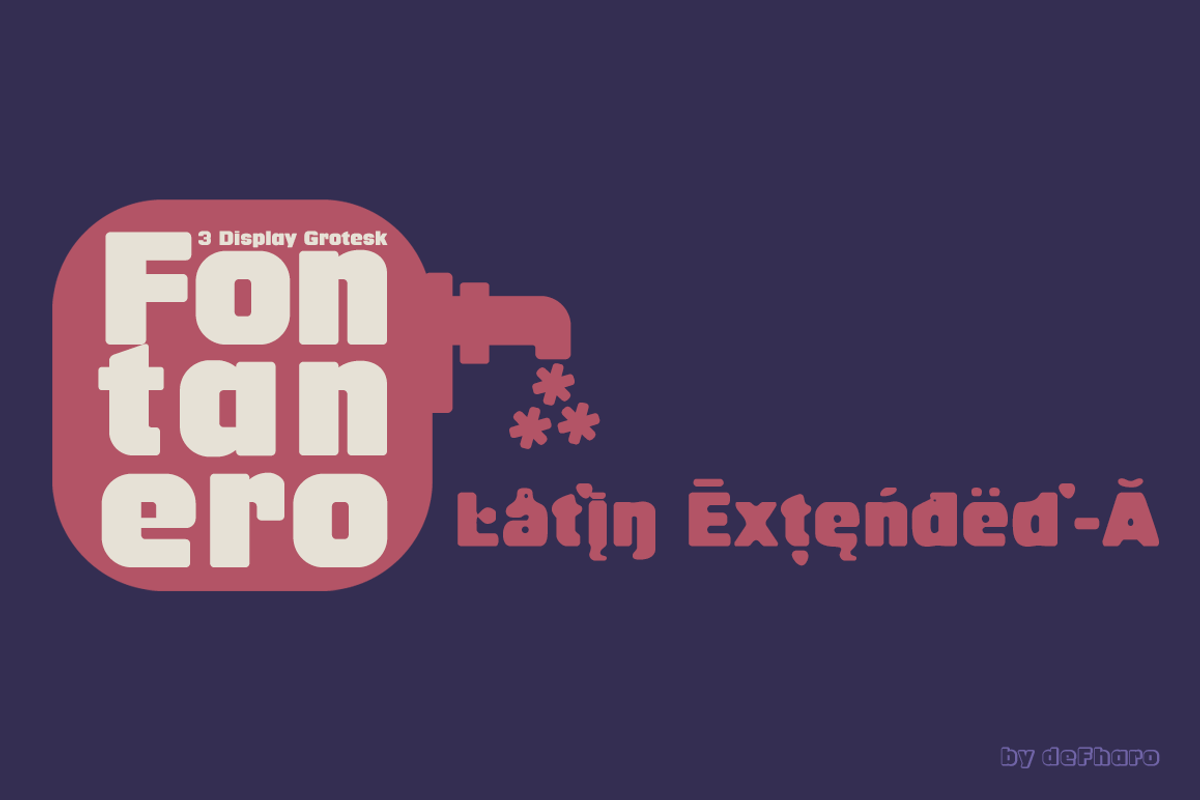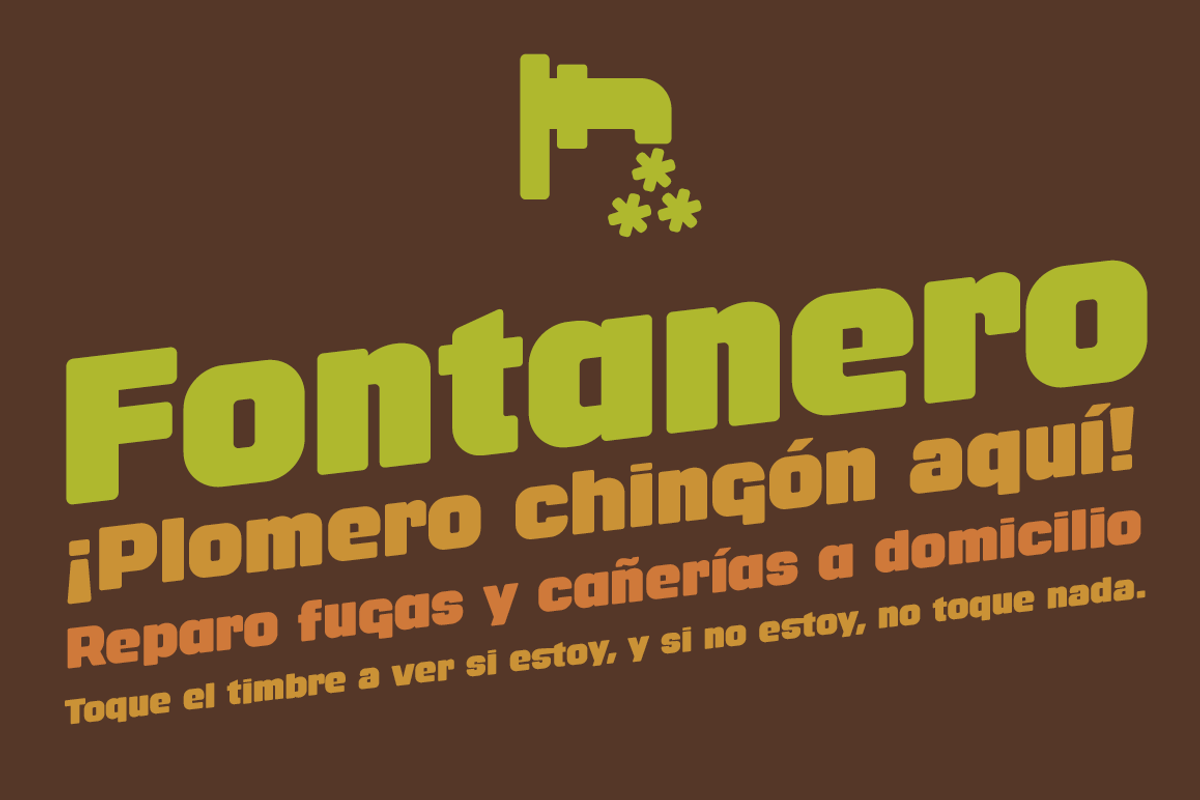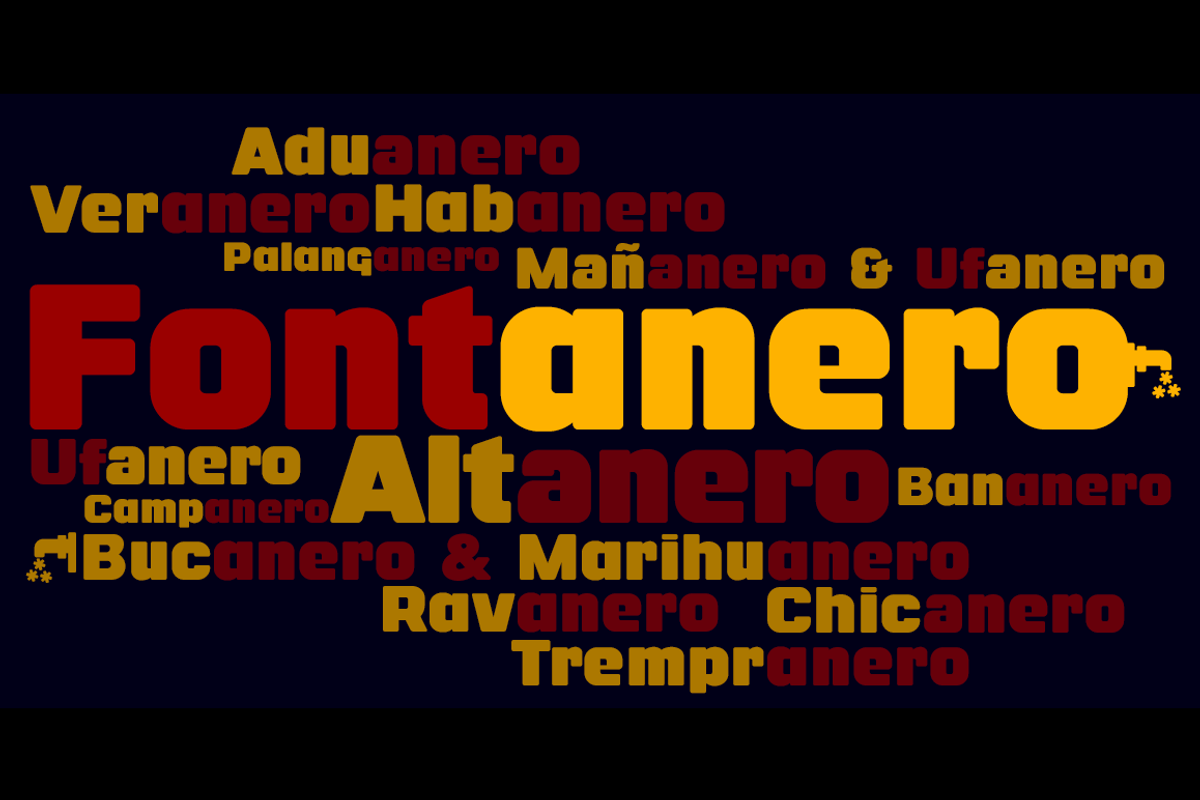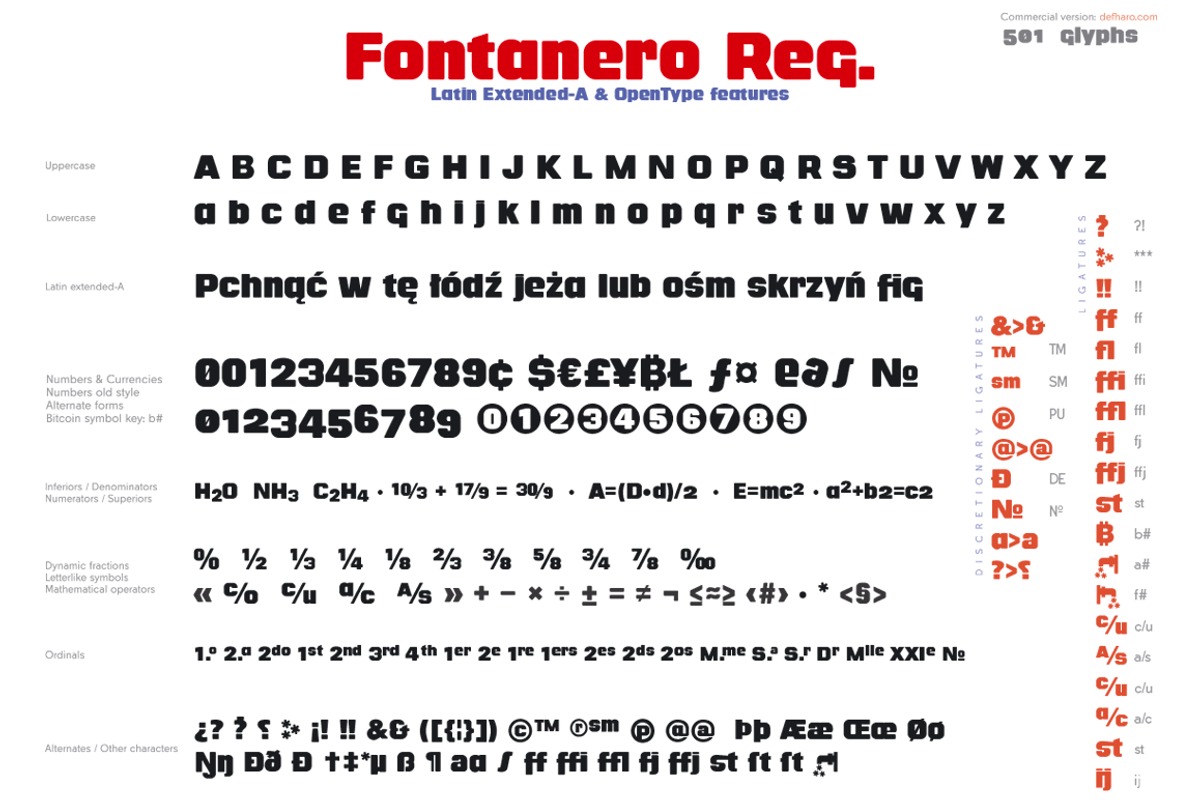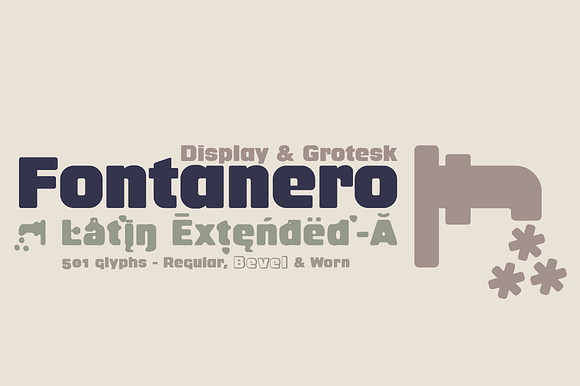
Fontanero -3 fonts-
Very thick font Sans of square proportions and rounded antlers, is a very compact typeface thanks to the ascending shorts. My commitment to geometric drawing and the mathematical sequences related to the golden number has led me to the construction of this new display font.
3 fonts: Regular, Bevel & Worn
Funciones OpenType: Contextual Alternates, Superior letters, Historical Forms, Superscript, Denominators, Extended Fractions, Slashed Zero, Fractions, Capital Spacing, Inferiors, Alternate Annotation Forms, All Alternates, Standard Ligatures, Scientific Inferiors, Additional languages, Subscript, Ordinals, Localized Forms, Numerators, Oldstyle Figures, Discretionary Ligatures.
They include the Bitcoin symbol. b# - (ligatures)